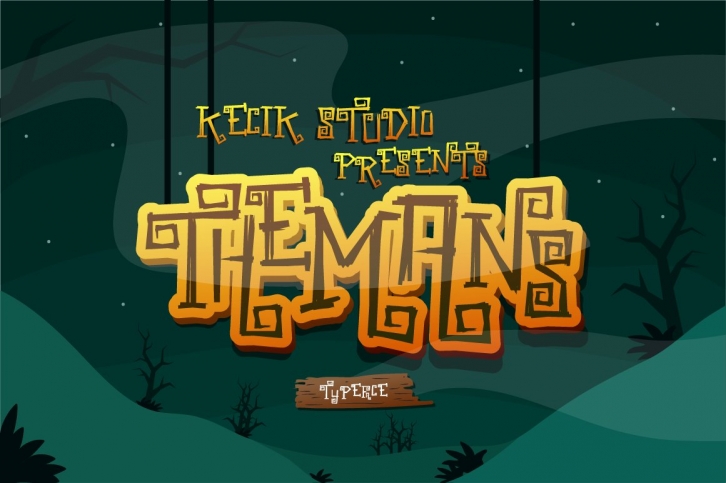
Themans typeface inspired by the tree roots spread that identical with terrible atmosphere, is very suitable for Halloween.Suitable for greeting cards, poster, Logo, qoutes, games, etc
Themans comes with upper and lowercase Standard Characters, Punctuation, Numerals & ligatures